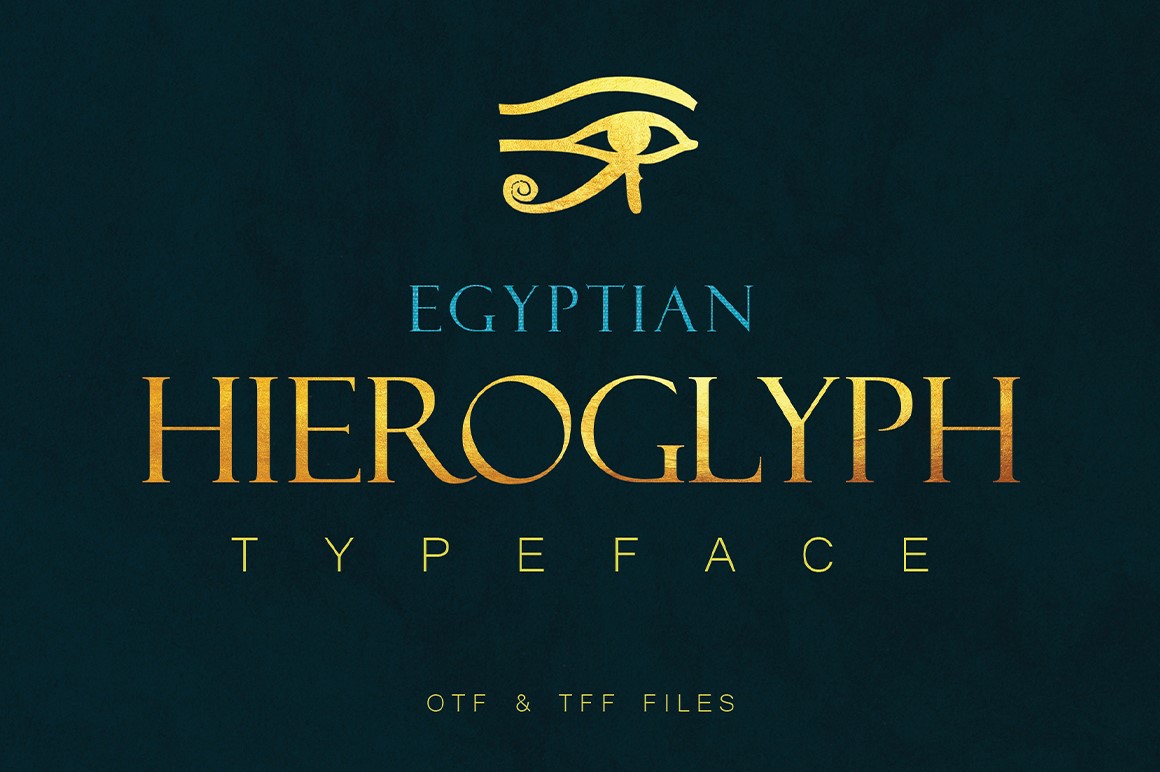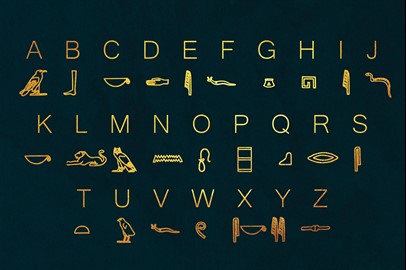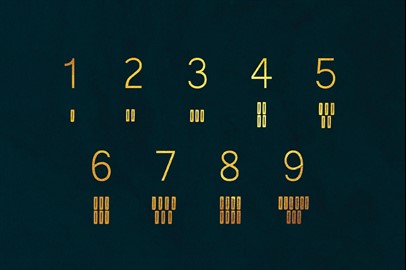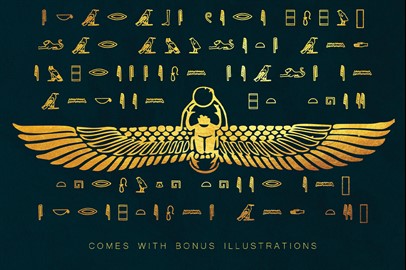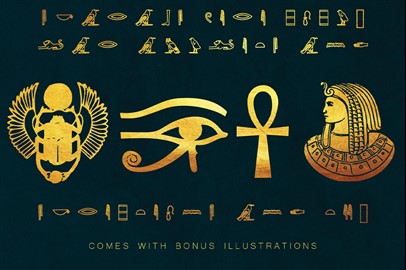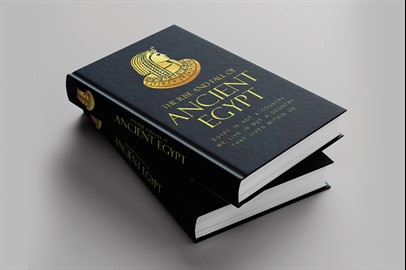
Egyptian Hieroglyph Typeface
This unique hieroglyph typeface is a font based on the Egyptian alphabets. This typeface is perfect for logos, monograms, titles, and posters. Ancient Egyptian is a difficult language to translate so this typeface - although as accurate as possible - is by no means a perfect translating tool. Included are 5 EPS vector files of Egyptian symbols as a bonus and as a thank you.
UPDATE 2.0
I have added a bold version of the font which fills in all the white space found in the regular version. I hope you like it.